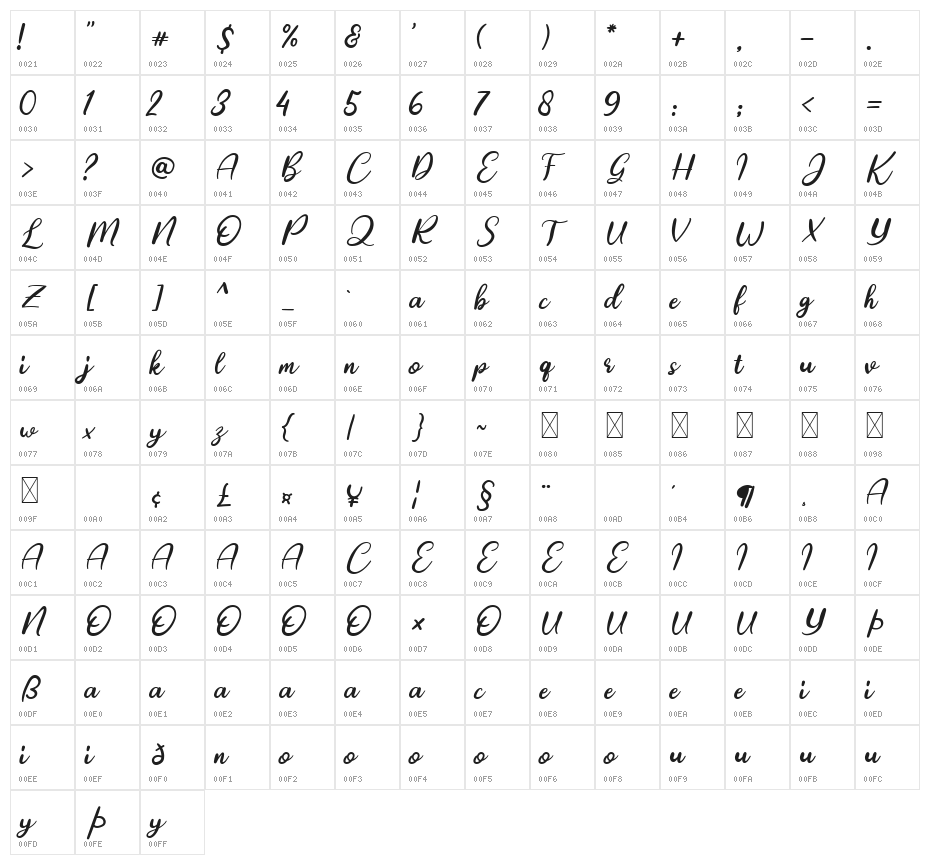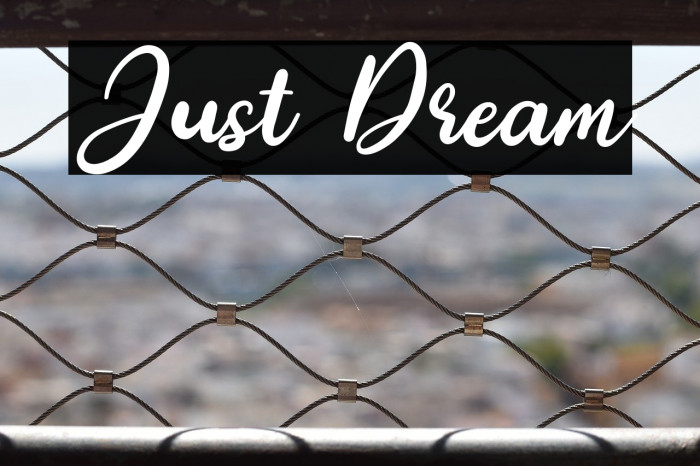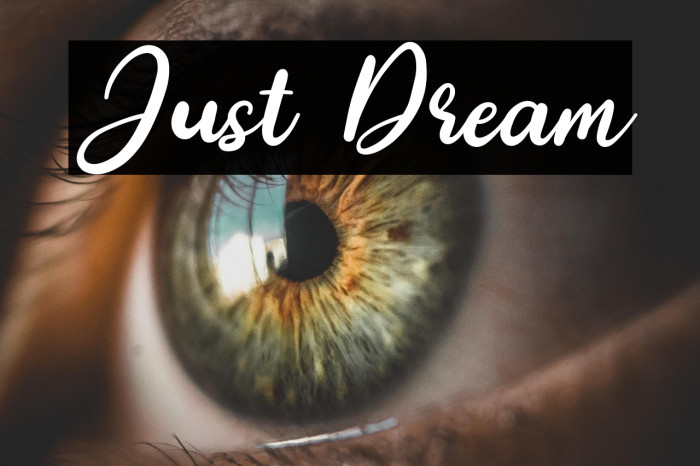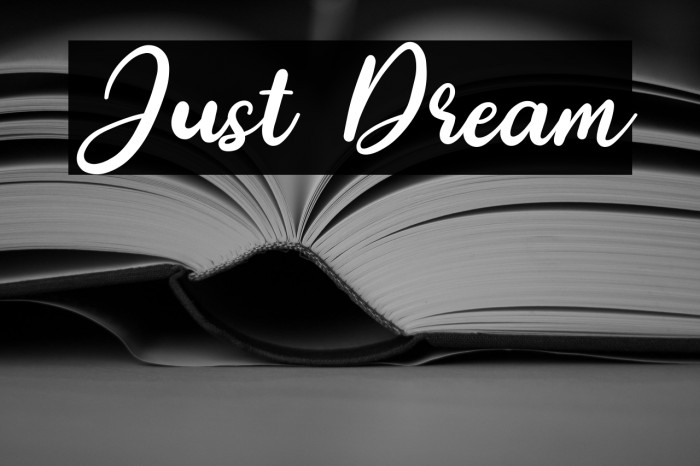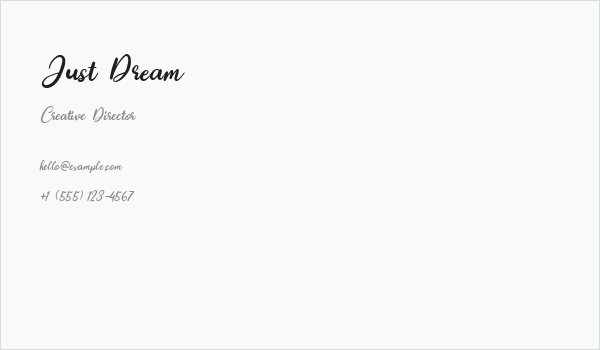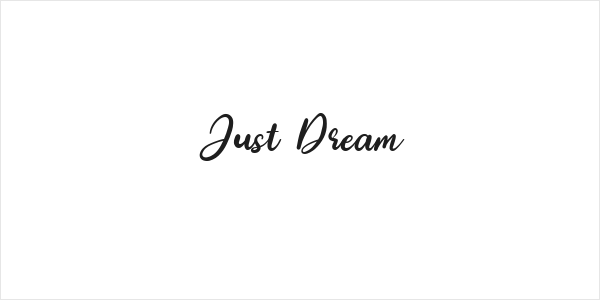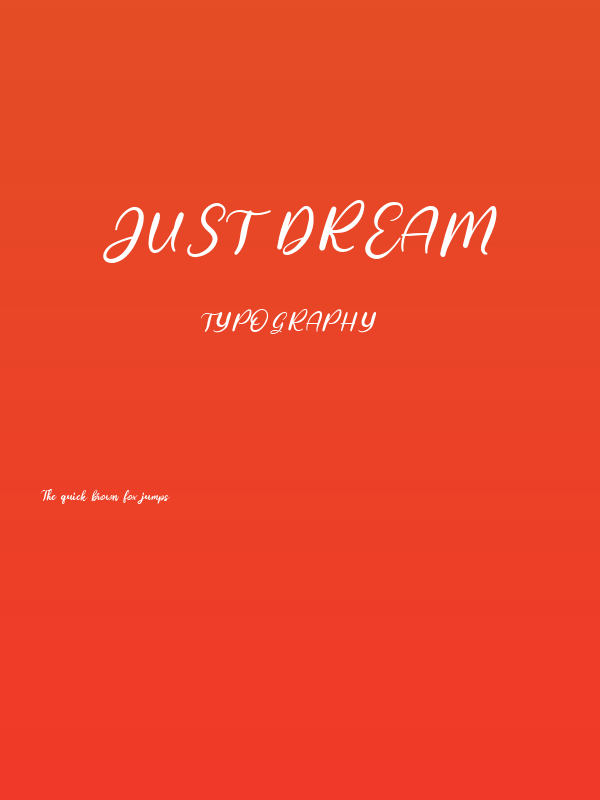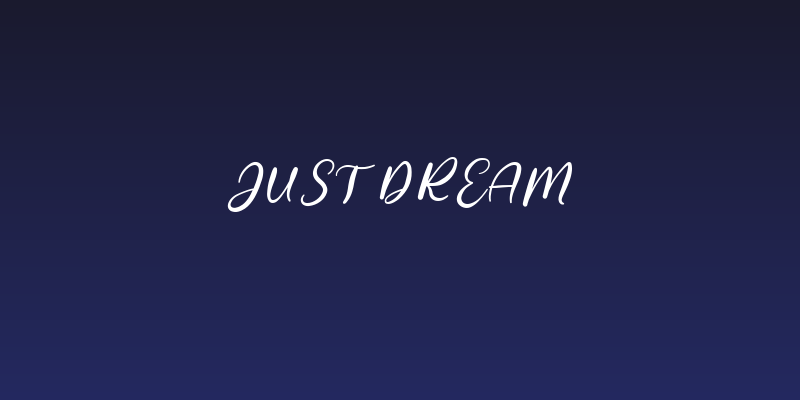
Just Dream Font
Just Dream Description
This font features a flowing, cursive style that exudes elegance and sophistication. The uppercase letters are tall and slightly slanted, with smooth, sweeping curves that give a sense of motion and grace. The lowercase letters maintain a consistent flow, with rounded forms and gentle connections between characters, creating a harmonious and fluid appearance. The numerals are designed with a similar flair, offering a cohesive look across all characters. Special characters are crafted with the same attention to detail, ensuring they blend seamlessly with the rest of the font. This font's overall aesthetic is both stylish and versatile, making it suitable for a variety of design applications.
Overall StyleElegant, Sophisticated
Use CaseLogos, Invitations, Branding
Proposed ProjectsIdeal for wedding invitations, branding projects, elegant logos, and upscale packaging designs.